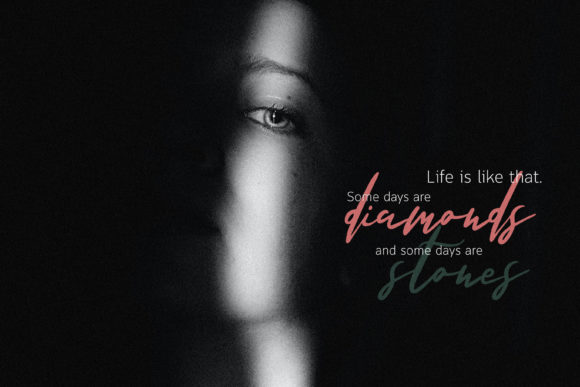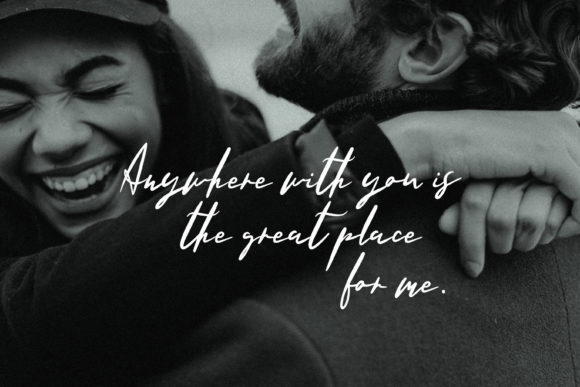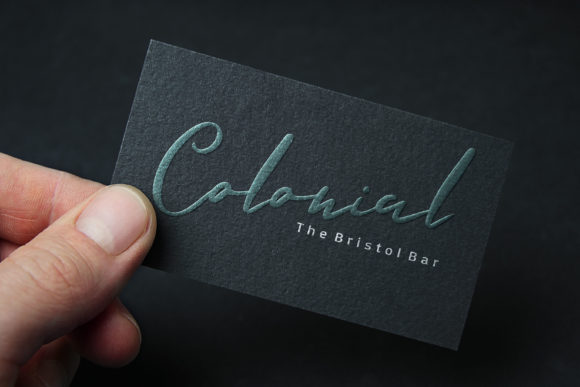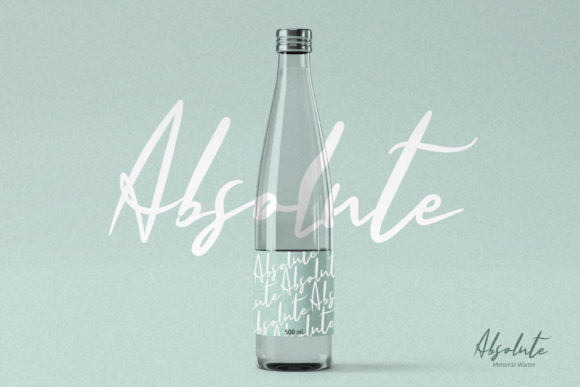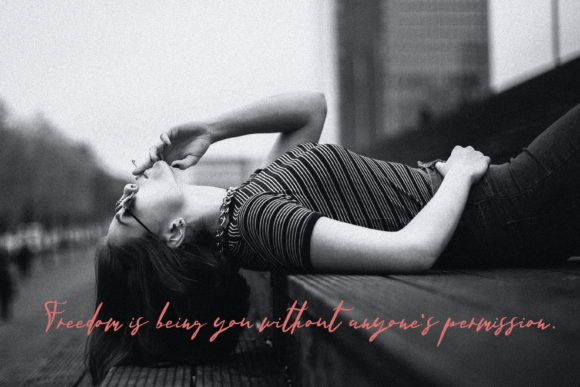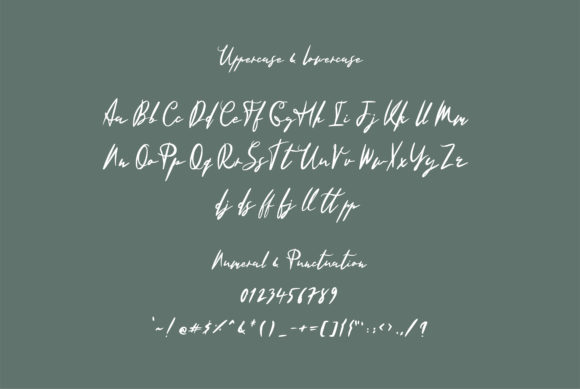
Introduction to Siltstone Font
Have you ever found yourself in a creative flow, where ideas pour in and your imagination runs wild? It’s that moment when you need the perfect design resource to bring your vision to life. For me, that moment often comes when I’m working on a new project and I stumble upon the perfect font. That’s exactly what happened when I discovered the Siltstone Font.
| 👤 Author | Fontana Studio |
This elegant and flowing handwritten font has been a game-changer for me, and I’m sure it will be for you too. With its incredibly versatile style, the Siltstone Font is perfect for creating spectacular designs that stand out from the crowd. Whether you’re working on a creative project or just looking for a high-quality font to elevate your designs, the Siltstone Font is an excellent choice.
What sets the Siltstone Font apart is its unique, handwritten feel that adds a touch of personality to any design. And the best part? It’s available for free download, making it an accessible and valuable resource for designers of all levels.
Key Features of Siltstone Font
- Designed with a unique, modern aesthetic, making it perfect for contemporary creative projects
Honest Review: Siltstone Font
As a designer, I’m always on the lookout for high-quality design resources to elevate my creative projects. Recently, I had the chance to try out the Siltstone Font, and I must say, it’s a great addition to my design toolkit.
What works well: ✨ The Siltstone Font has a unique, rugged texture that adds a touch of earthiness to any design. The transparent background allows for seamless integration with other design elements. The font is also highly customizable, making it perfect for a wide range of creative projects.
What could be improved: ⚠️ One potential limitation is that the font may not be suitable for projects that require a more polished, sophisticated look. Additionally, the font’s texture can sometimes be distracting, especially when used in large quantities.
Overall impression: I’m really impressed with the Siltstone Font. It’s a great free download that offers a lot of flexibility and creativity. While it may not be the best choice for every project, it’s definitely a valuable resource to have in your design arsenal.
- Unique, rugged texture
The Siltstone Font is ideal for creative projects that require a unique and eye-catching font. Some common use cases include:
- Branding materials
- Brochures